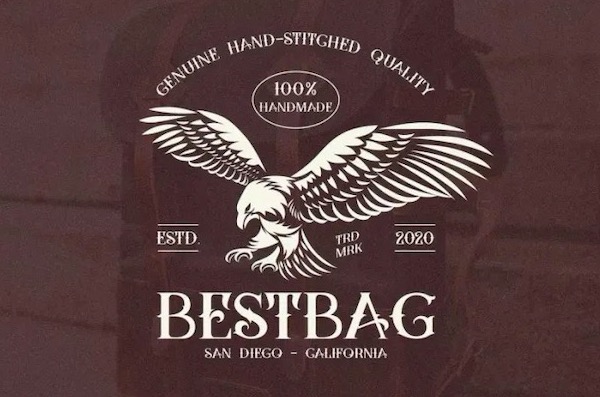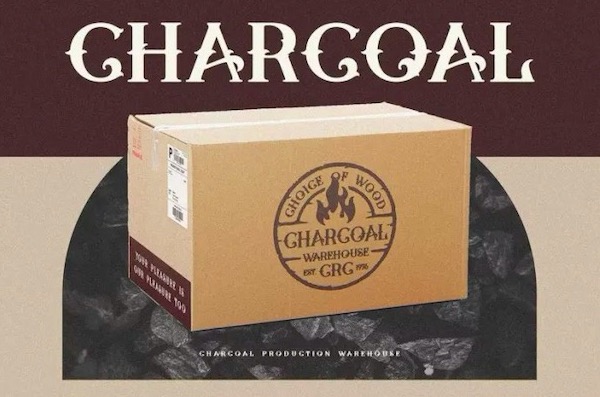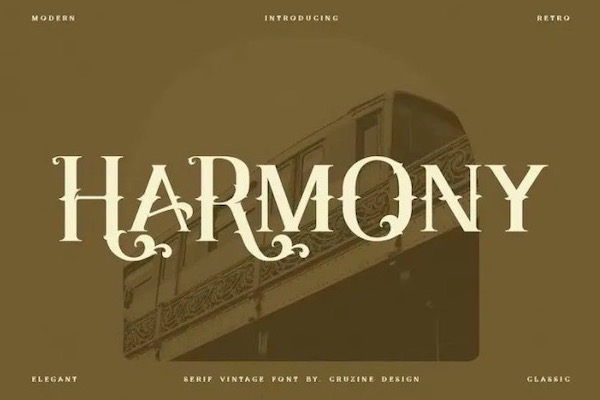
Harmony Font is an elegant classic ornamental display font Typeface that has a unique retro, vintage, & decorative style. So, this typeface is very great for your new logo or branding project.
Harmony Display Retro Font